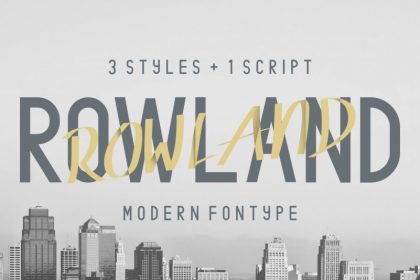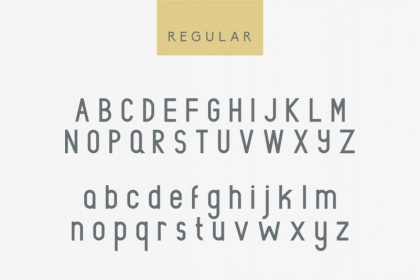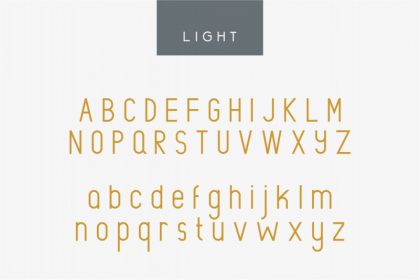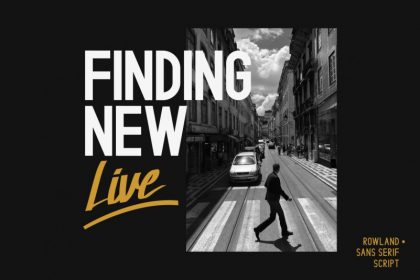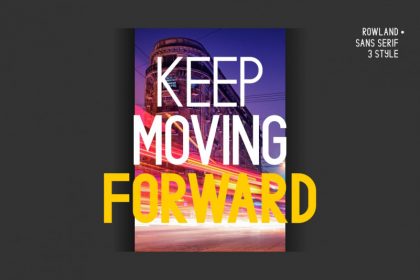
Rowland Typeface
Hi Guys! It’s us again, please meet our newest font : Rowland Typeface! This is FOUR fonts into ONE. Yes, it has 4 fonts family : Sans, Calligraphy, Bold and Light Sans. It has a modern script handwriting Calligraphy with three styles of SANS font, It has a unique and stylish glyph.
Great for wedding, clothing, logo, stationery, business card, signage, flyer, brochure, invitation, shirt, merchandising etc. There are many industries that is suitable for this font : retail, salon, clothings, restaurant, casual, etc. It’s a sophisticated font which will be perfect for branding, logo, photography and signature. It is so elegant, classy, strong and beautiful.
Rowland Sans Serif Font Duo